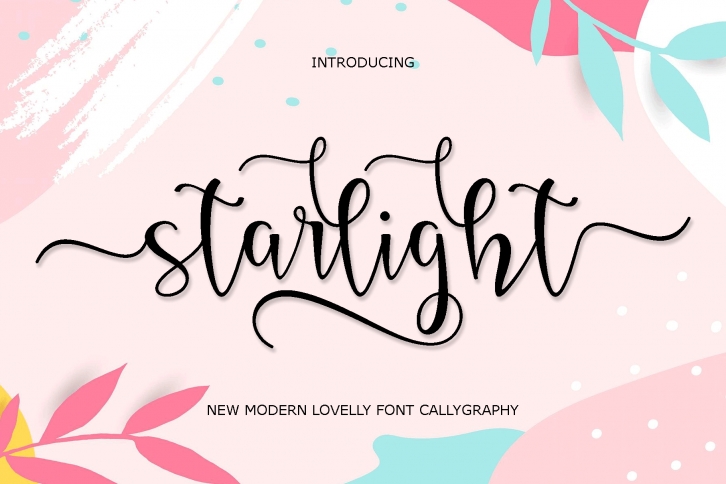
starlight is a great font that was designed by Letterfonts. Imagine the amount of combinations you can create using this font! The archive is 13.9 MB and it was released on October 11, 2019. starlight looks beautiful on wedding invitations, greeting cards, logos, posters, labels, t-shirt designs, logos, business cards and is perfect for use in ink or watercolor works, fashion, magazines, packaging and food menus, children's books and more!